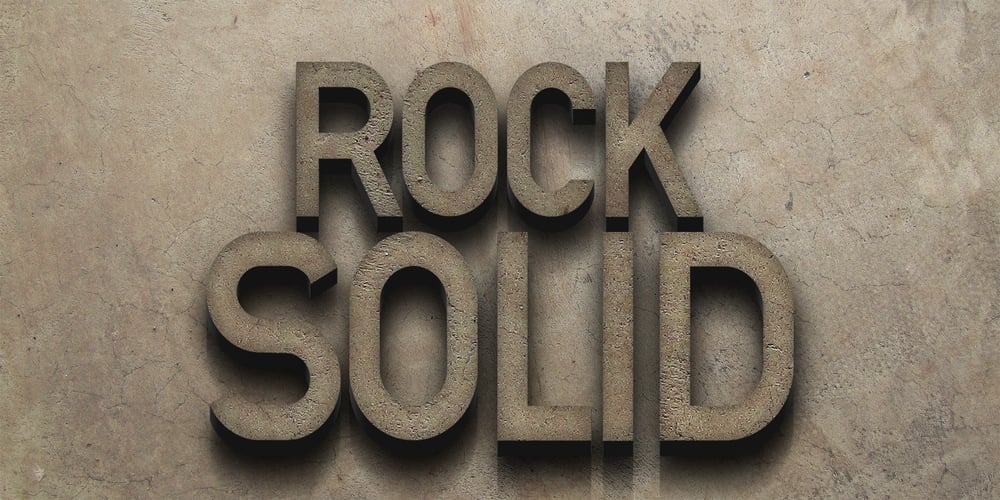
Stonetype
Stonetype font
Stonetype Font Family was designed by Coert De Decker and published by Kustomtype. Stonetype contains 4 styles and family package options. Stonetype is a typeface that was used by stonemasons in the 70s & 80s of the last century. When I was starting as a stonemason, these were the first characters I had to draw, by hand, back then on grave monuments and memorial plaques. The idea was born to digitize all the material, to be saved for eternity. By digitizing all and fine tuning, plus the addition of some main characters, Stonetype has now grown into a user-friendly typeface that can, now still, be used by stonemasons, to improve their creation process times. But Stonetype can also easily be used in modern and contemporary designs. Stonetype is the perfect fit for graphic design, editorial design, magazines, posters, logotypes, brands and corporate design. Stonetype is designed by Coert De Decker in 2019 and published by Kustomtype Font Foundry.